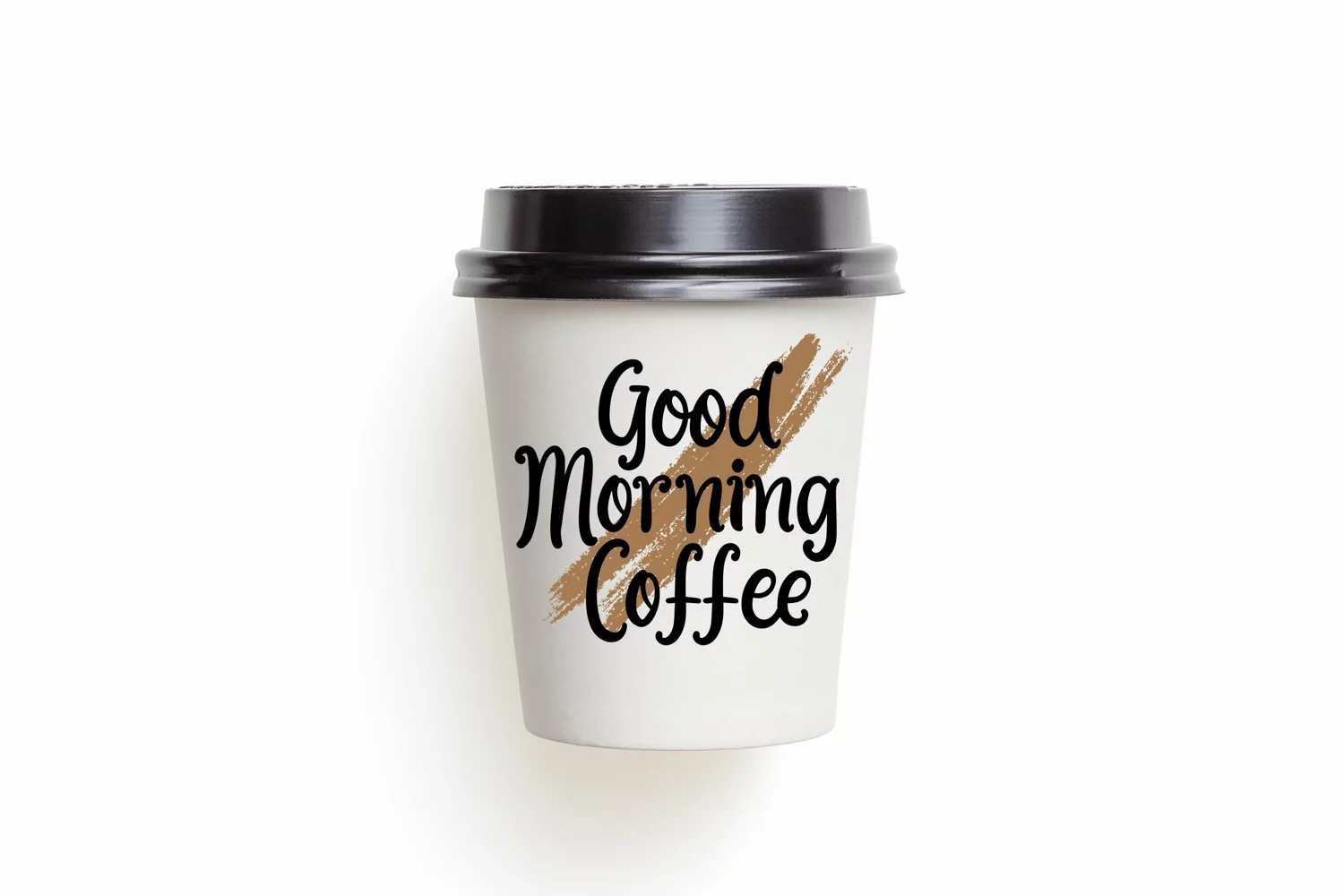
Blossom Park - Cute Handlettered Font that contain lowercase, uppercase, symbol, and also support multi language. There’s a lot ligatures in this font. This Font also comes with ligatures, alternates and many more. this font suitable for fashion, branding, catalog and other design what you want.
Blossom Park